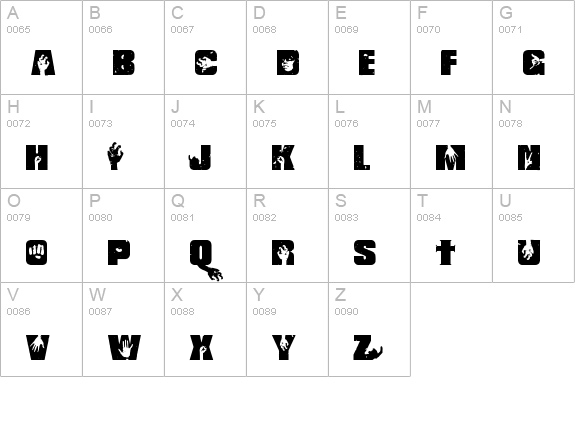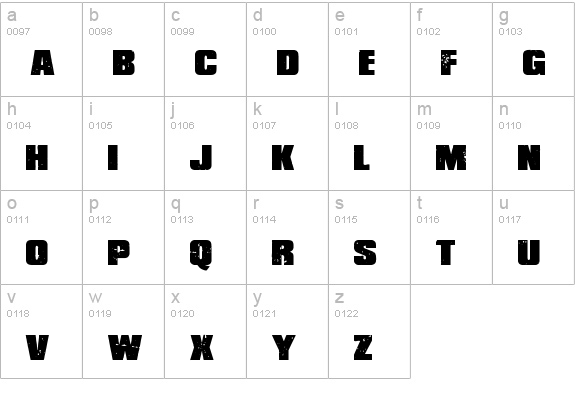
Shaun of the Dead Font Details
Introducing "Shaun of the Dead," a captivating and versatile font that will transport you to the thrilling and humorous world of the iconic movie. This font captures the essence of the film's unique blend of horror and comedy, allowing you to infuse your designs with its distinct character. With its bold and playful letterforms, "Shaun of the Dead" font adds a touch of excitement and intrigue to any project. Whether you are looking to create eye-catching posters, attention-grabbing headlines, or quirky merchandise, this font is sure to make a statement. One of the most appealing aspects of "Shaun of the Dead" font is that it is completely free! Yes, you read that right. This captivating font can be freely downloaded at FontsMarket.com, making it accessible to designers, enthusiasts, and fans alike. Say goodbye to pricey fonts and enjoy the freedom of creativity with this fantastic typeface. But "Shaun of the Dead" font is not just about its affordability; it also offers exceptional quality. Each letter is meticulously crafted, ensuring clean lines and legibility at any size. The font's unique style adds a touch of personality to your designs, making them stand out from the crowd. Whether you are a professional designer or an aspiring artist, "Shaun of the Dead" font is a valuable addition to your font library. Its versatility and free availability make it an excellent choice for a wide range of projects, from movie-related designs to Halloween-themed creations. So, why wait? Head over to FontsMarket.com and download "Shaun of the Dead" font today. Unleash your creativity, captivate your audience, and bring a touch of horror and humor to your designs with this fantastic and freely available font.